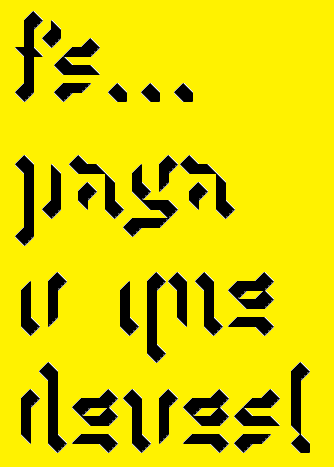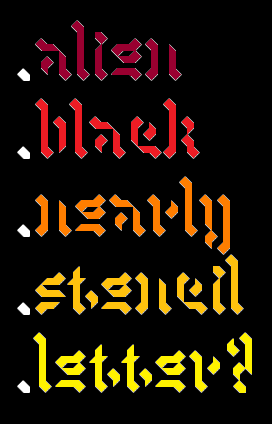
• ***WIP***Very Experimental*** Please be aware that none of the letters are representative of any type of folded material what so ever, and have no intention to be treated as such. But it’s a cool name…right!?
Strange goth font with a bizarre vanishing effect making it alien and hard to read because some strokes completely vanished. Weird.
Personally I think I would have used your o instead of your u wich is a bit weak. For me your o is a perfect u. Type text using o for u and you will see. But I don't know how could be your o then.
How is the new "o" holding up?
This works really well in the last sample and sample text - strong, yet a bit ethereal. - Looking forward to seeing UC, numerals etc :)
According to me, o and u are good. Reading this font feels like solving a mystery. But the accents are maybe a little too straight ?
the new o is certainly more effective.
I agree with IR : the accents are too straight , but maybe your grid limits too much the possibilities
I changed the diacritics, please be aware that this font is very experimental, and blocks of text doesn't suit it, I don’t even know why I did diacritics in the first place…
Now it's totally awsome ! I typed and typed text it definitely functions perfectly. And thanx for your effort on the accents, in french we desesparately need them. Excellent job !
I'm sure the new diacritics have something to do with your success... Congrats!
brilliant. outstanding in many ways. visually a treat at various sizes. i love the effect seen in the sample text where you can read it, but sort of bends the mind because of your unconventional choices. cool.
wow first impression is: i love this !
Progress with uppercase and figures will be slow, but don’t lose patience, stay tuned.
More and more this font becomes evident and functional while remaining completely original.I wonder, do you think it would be appropriate to marry this font as textfont with my recent Churching Drop Caps font ? I think they would fit very well together...
Great font: it looks as if designed by removing bricks instead of adding them, up to the minimum configuration that still allows readability. Less is more, as usual!
@ Neurone: you’re welcome to try. But it won’t be very readable in blocks of text.
Pity you're right, it is magnified in short blocks of texts like your samples, definitely a display fonts, maybe could use it as intermediary short blocks of text in big size between my dropcaps and a more textfont